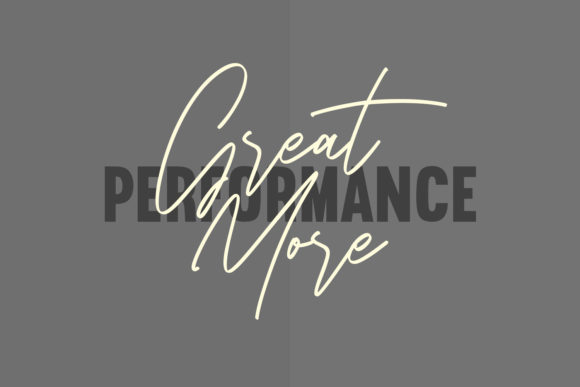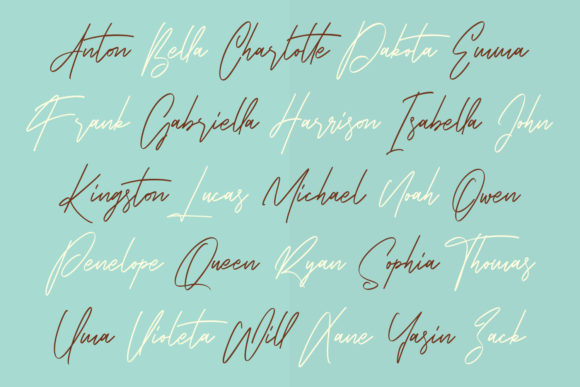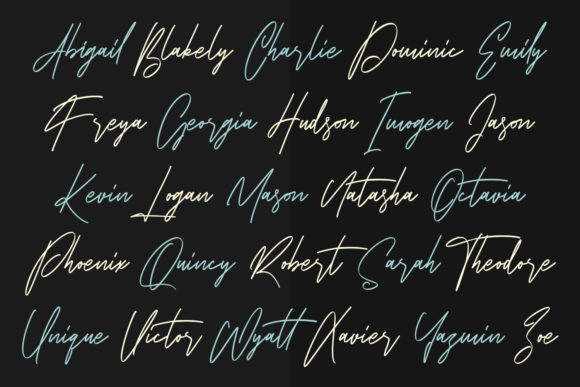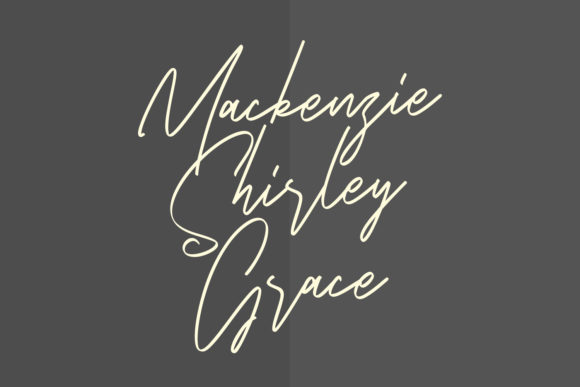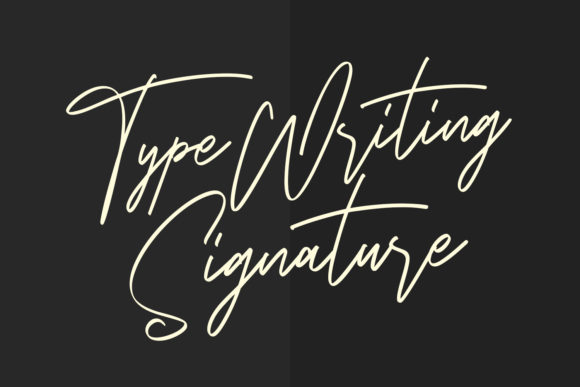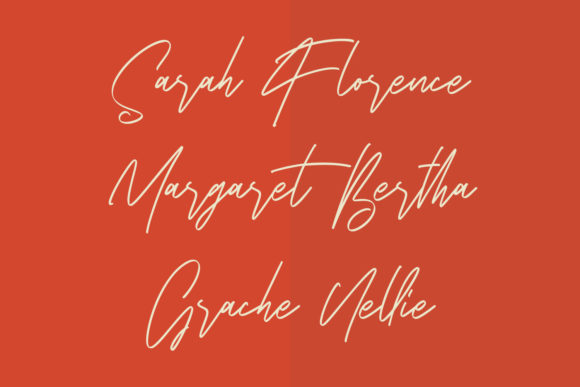
Introducing Chordettes Font: The Ultimate Handwritten Font for Creative Designs
Are you a designer or crafter looking for a unique and elegant handwritten font to elevate your creative projects? Look no further than Chordettes Font! This beautifully crafted font is designed to add a touch of warmth and personality to any design, making it perfect for a wide range of applications, from wedding invitations and greeting cards to logos and business cards.
What Makes Chordettes Font So Special?
Chordettes Font is an incredibly relaxed and flowing handwritten font that exudes a sense of elegance and sophistication. Its smooth, cursive lines and delicate connections make it look stunning on any design that requires a handwritten touch. Whether you’re creating a romantic wedding invitation or a heartfelt thank you card, Chordettes Font is sure to impress.
Key Features of Chordettes Font
- Handwritten style: Chordettes Font features a beautiful, handwritten style that’s perfect for adding a personal touch to your designs.
- Relaxed and flowing: The font’s smooth, cursive lines and delicate connections give it a relaxed and flowing feel that’s perfect for creating elegant designs.
- Versatile: Chordettes Font can be used for a wide range of applications, including wedding invitations, thank you cards, quotes, greeting cards, logos, business cards, and more.
- Elegant and sophisticated: The font’s elegant and sophisticated style makes it perfect for creating high-end designs that require a touch of luxury.
Uses for Chordettes Font
Chordettes Font is an incredibly versatile font that can be used for a wide range of creative projects. Here are some ideas to get you started:
- Wedding invitations: Create beautiful, elegant wedding invitations that set the tone for a romantic and unforgettable celebration.
- Greeting cards: Design heartfelt greeting cards for special occasions, such as birthdays, anniversaries, and holidays.
- Thank you cards: Express your gratitude with beautifully designed thank you cards that feature Chordettes Font.
- Logos and branding: Use Chordettes Font to create elegant and sophisticated logos and branding materials for your business or personal brand.
- Business cards: Design professional and stylish business cards that feature Chordettes Font and make a lasting impression.
- Quotes and posters: Create inspiring quotes and posters that feature Chordettes Font and add a touch of elegance to any room.
Why Designers and Crafters Love Chordettes Font
Designers and crafters love Chordettes Font for its unique and elegant style, versatility, and ease of use. Here are some reasons why:
- Unique style: Chordettes Font offers a unique and distinctive style that’s sure to stand out from the crowd.
- High-quality design: Chordettes Font is designed with high-quality and precision, ensuring that it looks great in any design.
- Support for creative projects: The font is perfect for supporting creative projects, such as handmade crafts, DIY projects, and more.